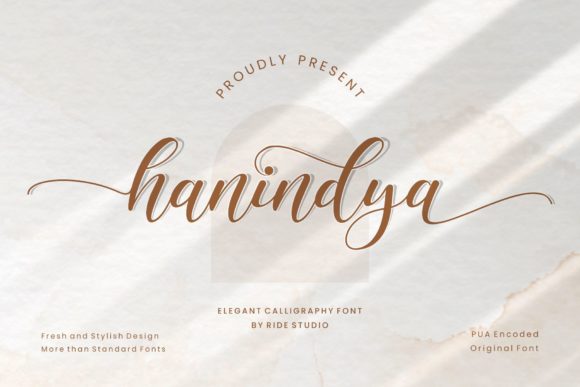
Introducing Hanindya Font: Elevate Your Designs with Elegance and Sophistication
In the world of typography, a font can make or break the aesthetic of a design. For those seeking a touch of elegance and class, Hanindya Font is an exquisite choice. This lovely and delicate script font is specifically crafted for designers, crafters, and anyone looking to add a refreshing look to their creations. With its PUA encoding, Hanindya offers effortless access to a wide range of glyphs and swashes, making it an ideal choice for projects that demand sophistication.
The Beauty of Hanindya Font
Hanindya Font is a masterpiece of typographic design, boasting a unique blend of elegance and playfulness. Its delicate strokes and curves create a sense of fluidity, making it perfect for designs that require a touch of refinement. Whether you’re working on a branding project, a wedding invitation, or a packaging design, Hanindya is sure to impress. The font’s lovely and delicate appearance makes it an excellent choice for:
- Packaging designs and labels
One of the standout features of Hanindya Font is its PUA (Private Use Area) encoding. This means that users can access a wide range of glyphs and swashes with ease, allowing for greater flexibility and creativity in design. With PUA encoding, you can:
- Easily access and use glyphs and swashes
- Customize your designs with unique and creative elements
- Save time and effort in design and editing
Why Choose Hanindya Font?
With so many fonts available, why choose Hanindya? Here are just a few reasons why designers and crafters love this beautiful script font:
- Elegance and sophistication: Hanindya exudes refinement and class, making it perfect for designs that demand a touch of luxury.
- Versatility: This font is suitable for a wide range of design projects, from logos and branding to packaging and social media graphics.
- Easy to use: With PUA encoding, accessing glyphs and swashes is a breeze, making design and editing a seamless process.
- Unique and creative: Hanindya’s delicate strokes and curves create a sense of fluidity, making it an excellent choice for designers looking to stand out from the crowd.
Tips for Using Hanindya Font
To get the most out of Hanindya Font, here are a few tips to keep in mind:
- Pair with complementary fonts: Combine Hanindya with other fonts that complement its elegant and refined style.
- Experiment with glyphs and swashes: Take advantage of Hanindya’s PUA encoding to add unique and creative elements to your designs.
- Use for headlines and titles: Hanindya’s elegant appearance makes it perfect for headlines and titles, adding a touch of sophistication to your designs.
| Font Name | Hanindya Font |
| Author | Ride Studio |
Hanindya Font is a stunning script font that offers elegance, sophistication, and versatility. With its PUA encoding and wide range of glyphs and swashes, this font is perfect for designers and crafters looking to elevate their designs. Whether you’re working on a branding project, a wedding invitation, or a packaging design, Hanindya is sure to impress. So why wait? Discover the beauty of Hanindya Font and take your designs to the next level.